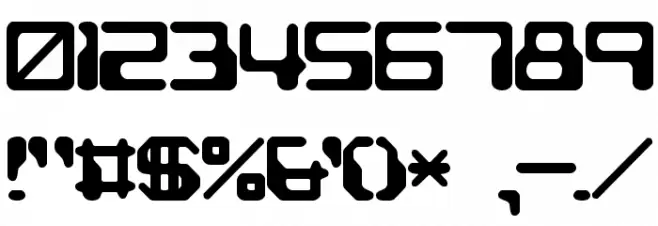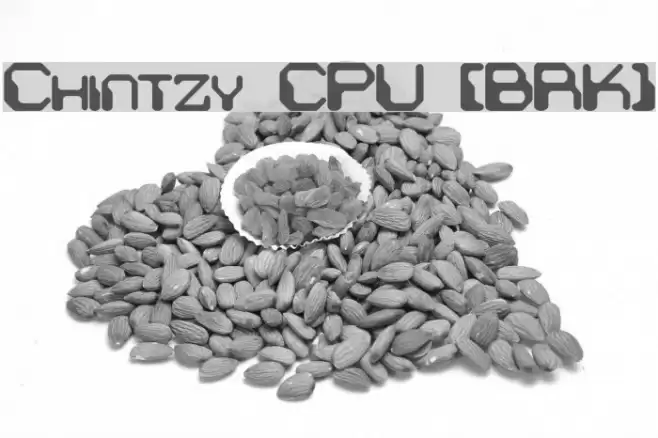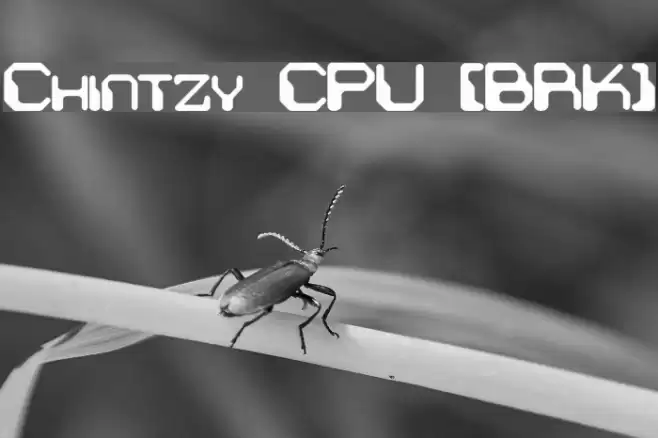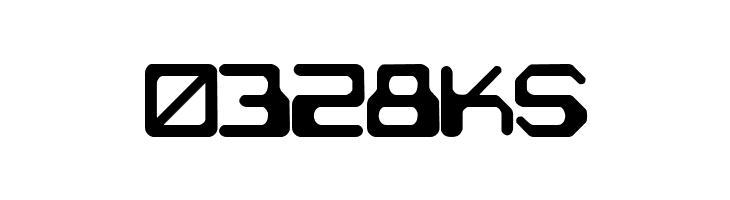
Chintzy CPU [BRK] Font
Chintzy CPU [BRK] Description
This font features a bold, futuristic design with a distinct digital aesthetic. The characters are constructed with geometric shapes, giving them a blocky and mechanical appearance. The rounded edges and uniform stroke width contribute to a cohesive and modern look. The uppercase and lowercase letters maintain a consistent style, while the numerals and special characters integrate seamlessly with the overall design. This font is ideal for projects that require a tech-savvy or sci-fi theme, offering a unique and eye-catching visual impact.
A bold, futuristic font with a geometric, digital aesthetic from Futuristic fonts.
- Proposed Projects: Ideal for tech-themed designs, sci-fi posters, video game graphics, and digital branding.
- Overall Style: Futuristic, Digital